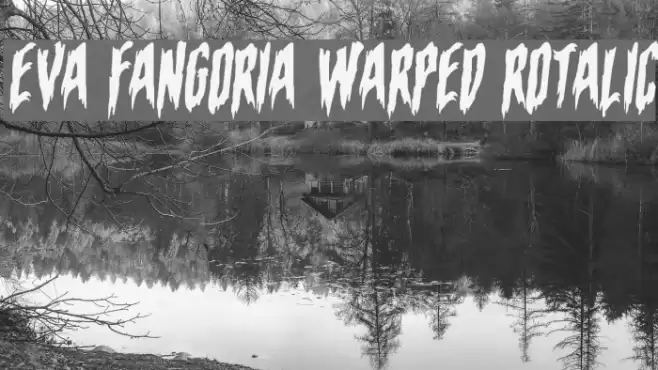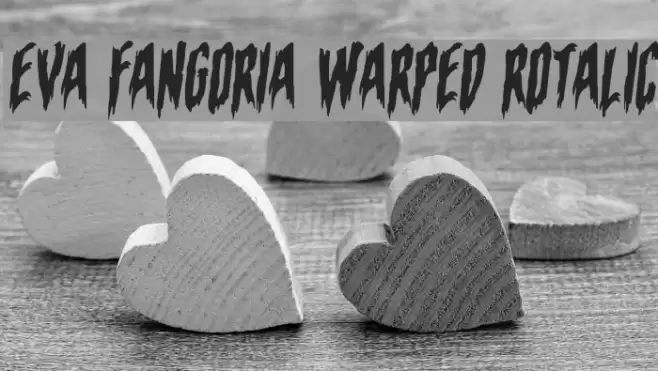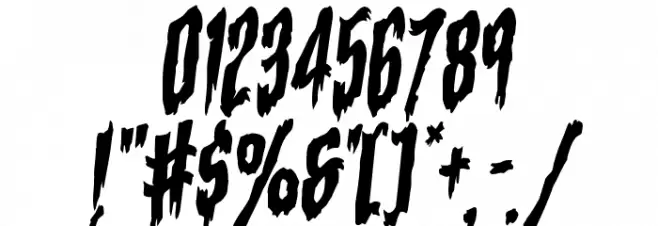
Eva Fangoria Warped Rotalic Font
Eva Fangoria Warped Rotalic Description
This font exhibits a bold, jagged style with a distinctly warped appearance, reminiscent of horror or thriller themes. The letters are sharply angled and irregular, giving an impression of movement or distortion. The uppercase and lowercase letters maintain a consistent style, with exaggerated serifs and pointed edges that create a sense of urgency and drama. Numbers and special characters follow the same aesthetic, ensuring a cohesive look across all text elements. The font's unique design makes it stand out, ideal for projects that require a striking and unconventional typeface.
A bold, jagged font with a warped, horror-inspired style from Uncategorized fonts.
- Proposed Projects: Perfect for horror movie posters, Halloween event flyers, edgy graphic novels, or any project needing a dramatic and eye-catching typeface.
- Character Spacing: Tight
- Use Case: Headlines, Posters, Logos